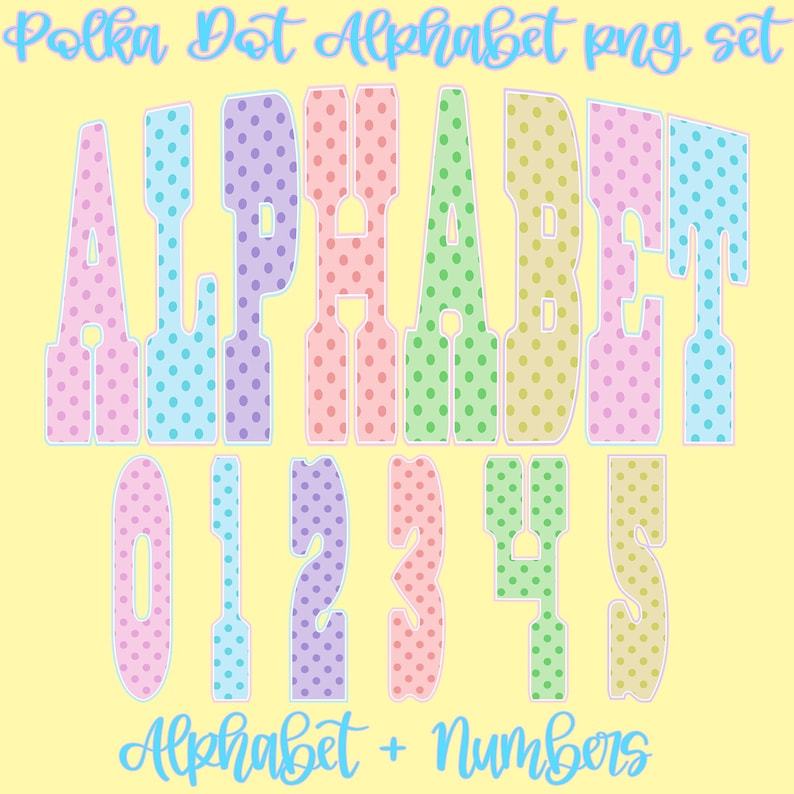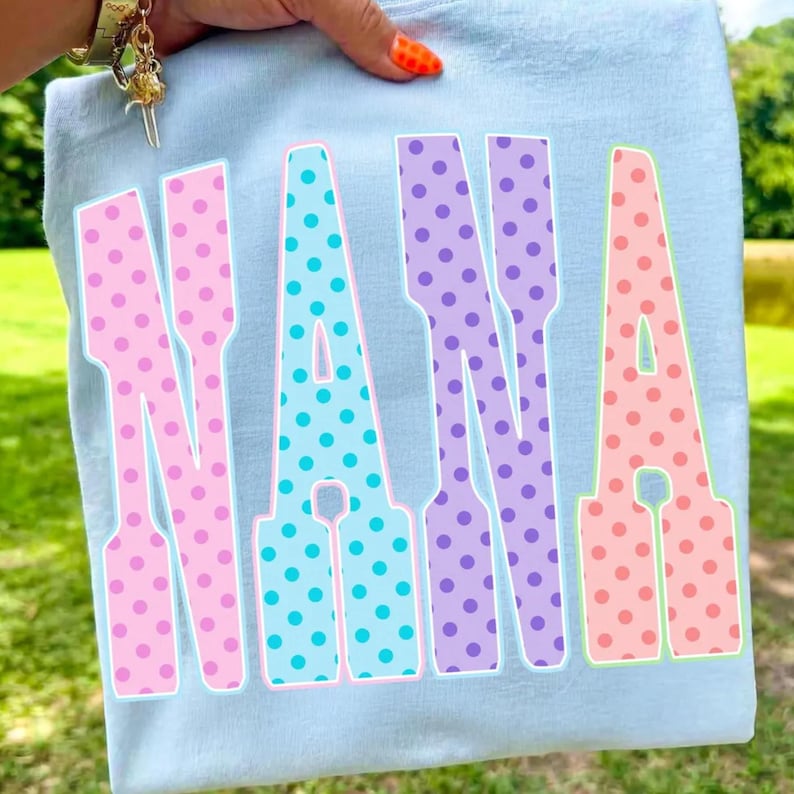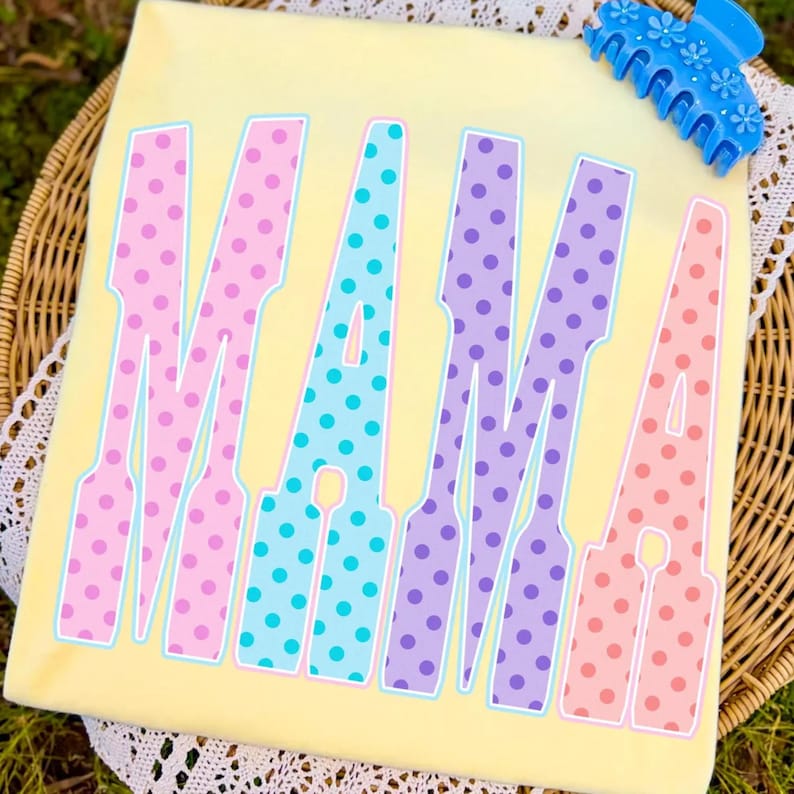
Score Big with the Ultimate Preppy Polka Dot Varsity Alphabet PNG Bundle for Game Day Crafts
The excitement of game day is unmatched, and there is no better way to show your team spirit than with custom, eye-catching apparel. Whether you are a dedicated DIY crafter, a supportive sports parent, or an e-commerce shop owner looking to boost your inventory, having the right design assets is key. Enter the Preppy Polka Dot Alphabet PNG Bundle. This vibrant digital download blends the timeless, nostalgic charm of retro varsity block lettering with a modern, playful aesthetic. Designed specifically for sublimation and Direct-to-Film (DTF) projects, this high-quality alpha pack is your ticket to creating standout festive wear that turns heads in the stadium and on the street.
Vibrant Design Features for Standout Game Day Apparel
What makes this digital varsity font bundle so special is its meticulous, high-quality craftsmanship. Each letter from A to Z and number from 0 to 9 is rendered in a high-resolution, 300 DPI PNG format with a clean, transparent background. This means you can seamlessly layer these graphics onto any color fabric or digital background without worrying about messy edges.
The design features a textured, hand-drawn varsity block style filled with a stunning pattern of vibrant pastel and neon polka dots. This unique combination gives your projects a cheerful, high-energy aesthetic that standard athletic fonts simply cannot match. Because the files are delivered as an instant digital download, you can skip the wait and start printing, cutting, or designing immediately. It is the ultimate hassle-free asset for creating professional-grade custom t-shirts, cozy game day hoodies, personalized mugs, and tailgating decor.
Endless Creative Possibilities for Crafters and Creators
This versatile alphabet pack is a goldmine for creative projects. For crafters and small business owners, the ability to spell out custom names, team mascots, graduation years, or fun sports slogans opens up endless product possibilities. Imagine designing matching sweatshirts for a cheer squad, personalized drinkware for a tailgating party, or vibrant wall art for a sports-themed bedroom.